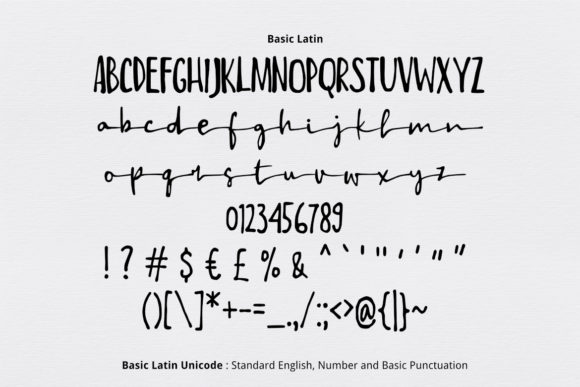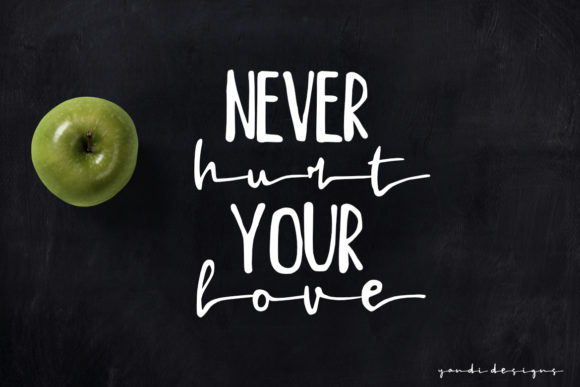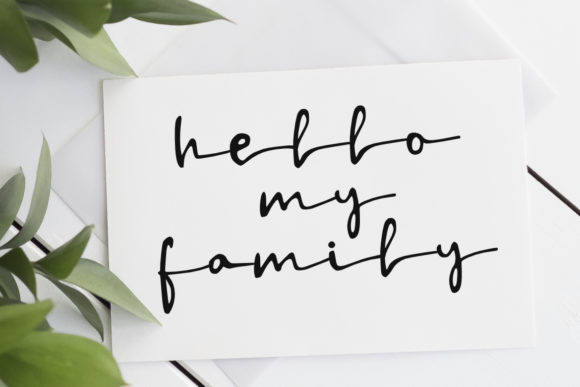
The Elusive Perfect Font: My Journey with Always Happy
I’ll never forget the time I was working on a wedding invitation project, and my client asked for a font that was ” elegant, yet playful, and made them feel like they were reading a beautiful handwritten letter.” I scoured the internet, tried out dozens of fonts, but nothing seemed quite right. That was until I stumbled upon Always Happy, a gorgeous and delicate script that instantly captured the essence of what my client was looking for.
With its undeniably authentic feel and contemporary look & feel, Always Happy has become one of my go-to fonts for projects that require a touch of sophistication and whimsy. In this article, I’ll share my honest review of the font, provide a practical guide on how to use it, and explore similar fonts that you might love.
• 💫 Beautifully crafted letters with a high level of detail and elegance
• ✅ Works well for both digital and print projects
• 🎨 Highly versatile and can be used for a wide range of design applications, from wedding invitations to branding and packaging
• 💬 Easy to read, even at smaller font sizes
• ⚠️ May not work well for very long texts or paragraphs, as it can be a bit too ornate
• 🤔 Some users may find the font a bit too delicate or thin for certain design applications
Tips for Getting the Most Out of Always Happy
Always Happy has a range of OpenType features, glyphs, and stylistic alternates that can help you get the most out of the font. Here are a few tips:
• Use the font’s built-in swashes and flourishes to add a touch of elegance to your design
• Experiment with different stylistic alternates to create a unique look
• Use the font’s glyphs to add decorative elements to your design
The Story Behind Always Happy
While the true story behind Always Happy is unknown, it’s easy to imagine that the font was created by a designer who was inspired by the beauty of handwritten lettering. Perhaps they spent countless hours pouring over vintage letters and diaries, searching for the perfect combination of elegance and whimsy. Whatever the inspiration, the end result is a font that is both timeless and modern.
Font Name Always Happy Font
Author YandiDesigns
Q: What type of projects is Always Happy best suited for?
A: Always Happy is a versatile font that can be used for a wide range of design applications, from wedding invitations and branding to packaging and digital design.
Q: Is Always Happy a difficult font to read?
A: No, Always Happy is a beautifully crafted font that is easy to read, even at smaller font sizes.